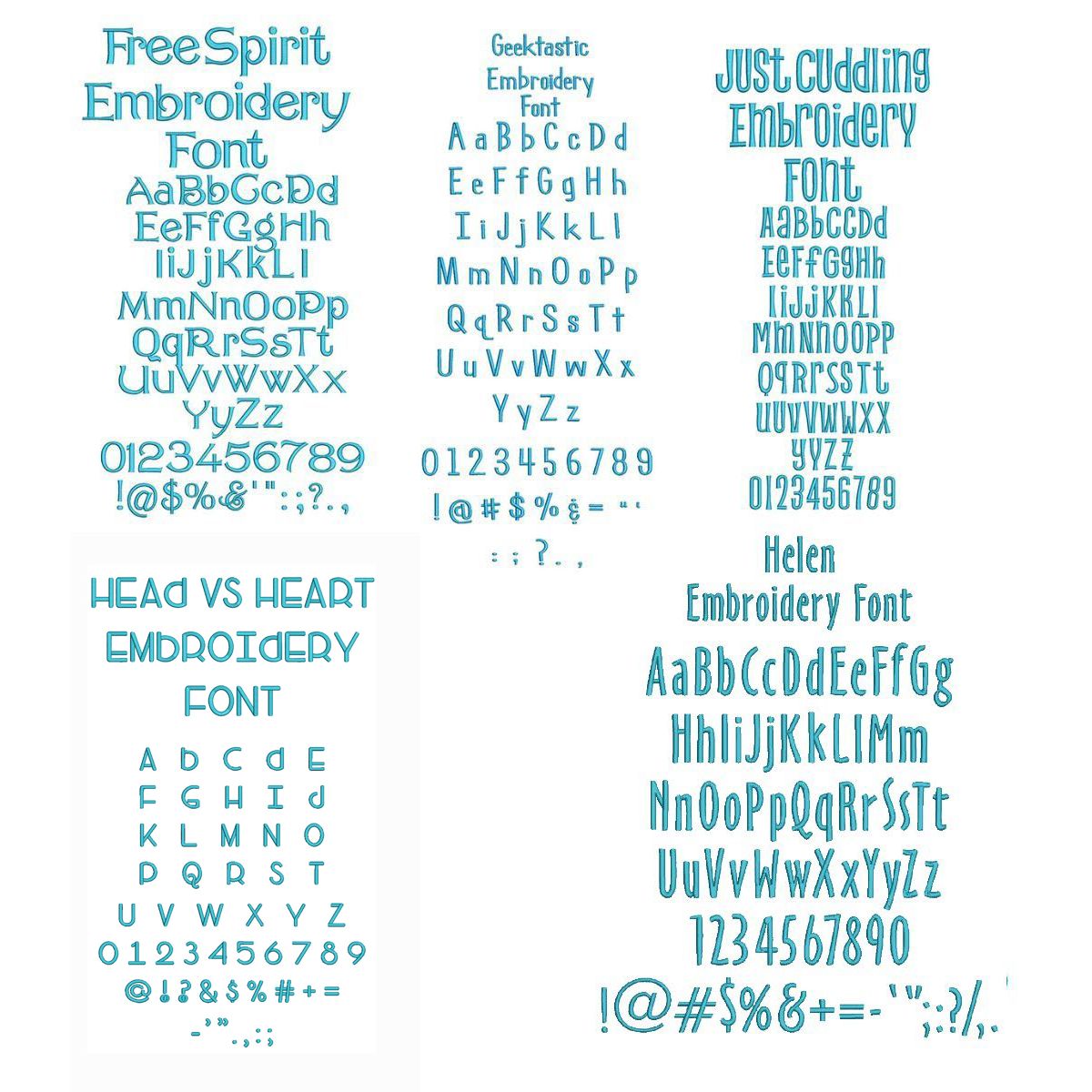
Quarter Inch Bundle 9 Satin Stitch Embroidery Font
Please note Head Vs Heart is a "unicase" font. There is only one design file for each letter of the alphabet. It is a mix of traditional capital and lowercase letters, as pictured.